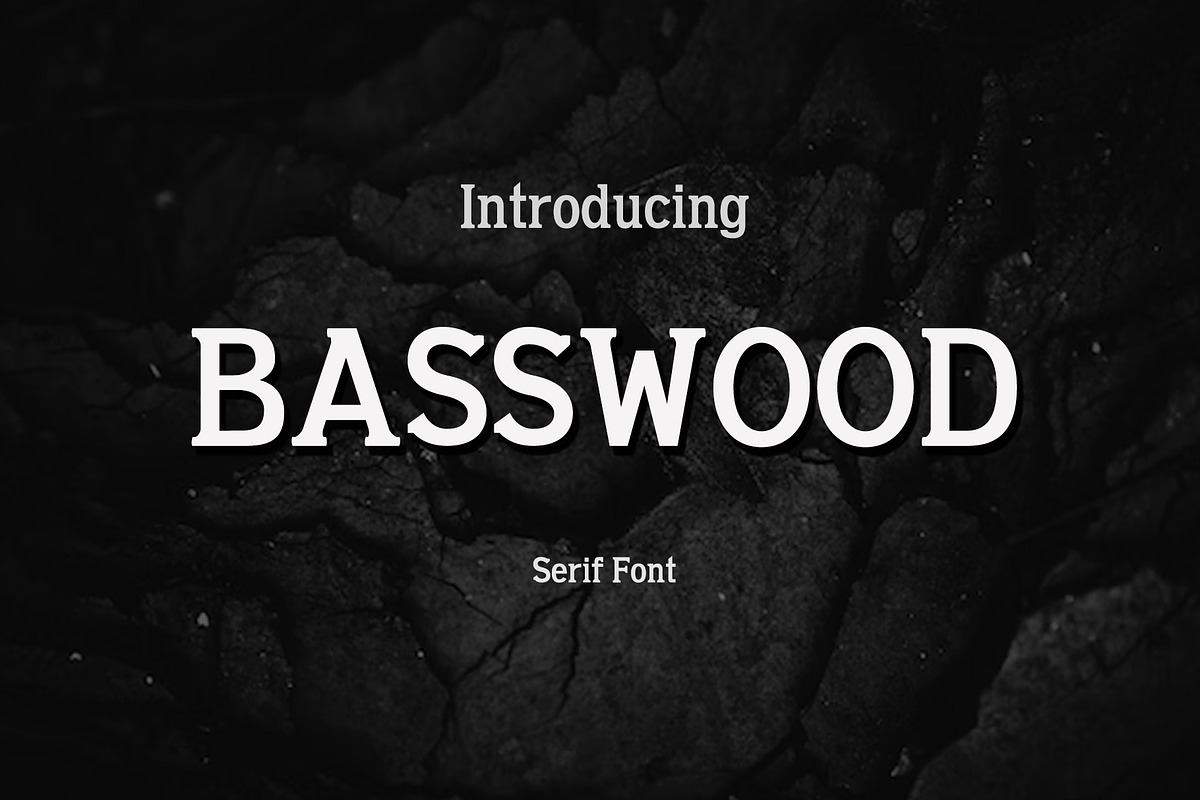
Basswood Serif Font Free Download is a refined and elegant serif typeface that combines classic design with modern sophistication. With its well-defined letterforms and strong serifs, Basswood is perfect for editorial layouts, branding, logos, websites, and any project that requires a bold yet refined typographic style.
The Basswood font is ideal for creating both traditional and contemporary designs with an air of professionalism and timelessness. Its readability and elegance make it especially suitable for long-form content like books, magazines, and premium product packaging.
The font includes uppercase and lowercase letters, numerals, punctuation, and multilingual support, making it versatile for a variety of applications in both print and digital formats.